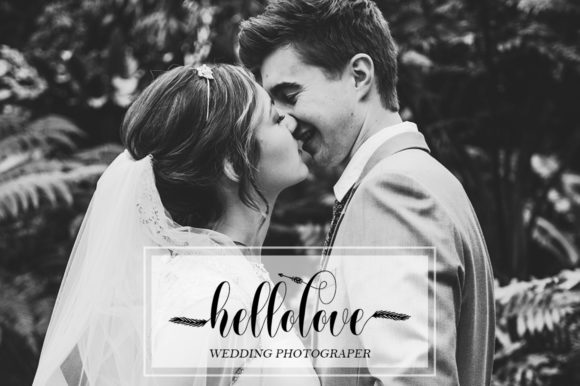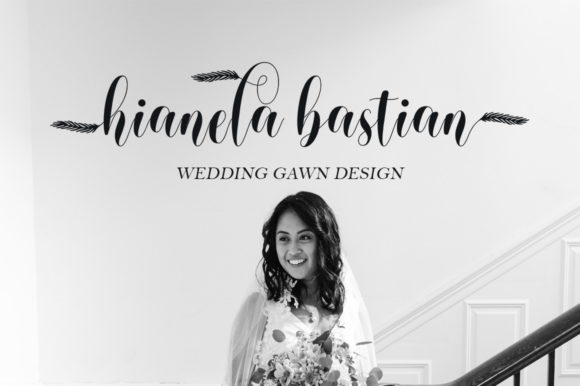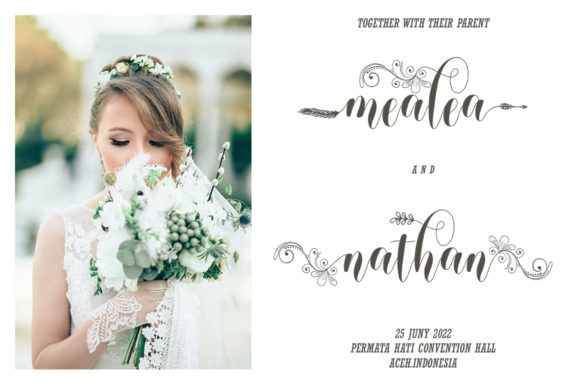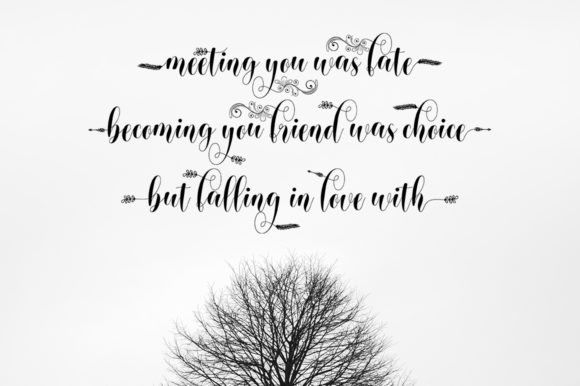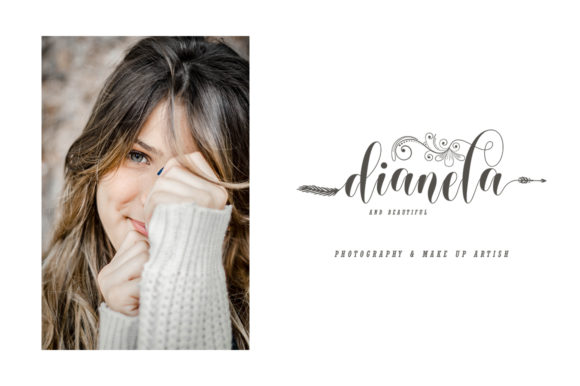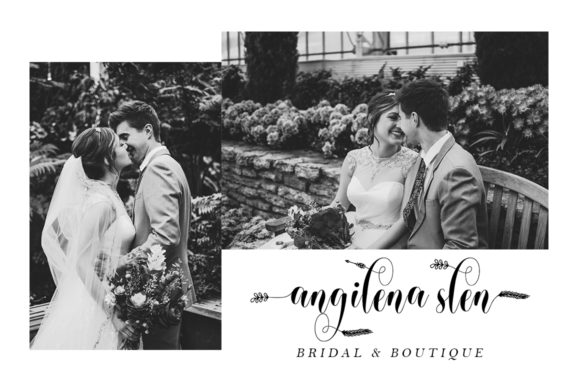
Introduction to Holiedarling Font
As a designer, there’s nothing quite like the thrill of bringing a creative project to life. Whether it’s a wedding invitation, a heartfelt thank you card, or a beautiful logo, the right font can make all the difference. And that’s where the Holiedarling Font comes in – a stunning, high-quality handwritten font that adds a touch of elegance to any design.
Imagine being able to download a free, PUA encoded font that lets you access all the glyphs and swashes with ease. With its varying baseline, smooth lines, and gorgeous glyphs, the Holiedarling Font is a valuable resource for any designer looking to add a personal touch to their work. Whether you’re working on a commercial project or a personal creative endeavor, this font is sure to become a go-to design resource.
- Features a clean and minimalist design, making it suitable for a wide range of creative projects.
- Includes a comprehensive character set, making it suitable for use in various languages and projects.
- High-quality design that looks professional and elegant
Overall, I’m very satisfied with the Holiedarling Font and would recommend it to fellow designers. It’s a great addition to any design library and can add a touch of sophistication to any creative project.
- Only available in a limited range of font weights and styles
Overall impression: 4.5/5. The Holiedarling Font is a solid design resource that delivers on quality and versatility. While it may have some limitations, it’s a great choice for designers working on creative projects.
The Holiedarling Font features a transparent background, making it ideal for creative projects that require a clean and minimalist design. With its high quality and versatility, this font is perfect for a variety of applications, from branding to graphics.